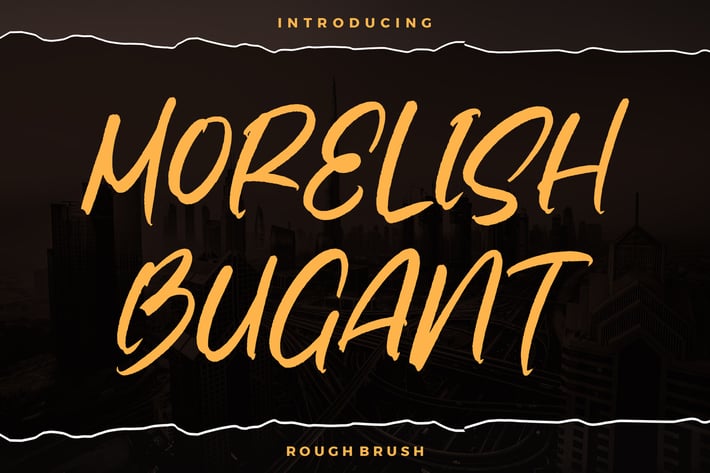
Morelish Bugant Rough Brush Font
Morelish Bugant is a bold rough brush font that brings raw energy, strong texture, and expressive hand-painted strokes into your designs. Crafted with dynamic movement and impactful character shapes, this typeface delivers an intense street-style aesthetic that instantly stands out. Its gritty brush details make it perfect for designers who want a loud, confident, and artistic display font.
Rough brush texture with bold and dynamic strokes
Strong hand-painted letterforms for expressive visual impact
Natural, imperfect details that enhance authenticity
Versatile for both large and small display use
Urban branding & streetwear logos
Bold posters & headline designs
Social media graphics with attitude
Creative title compositions
Product packaging with an edgy vibe
Sport, music, or event promotional visuals
Raw, bold, and full of energy — Morelish Bugant gives your designs the punch they’ve been missing.